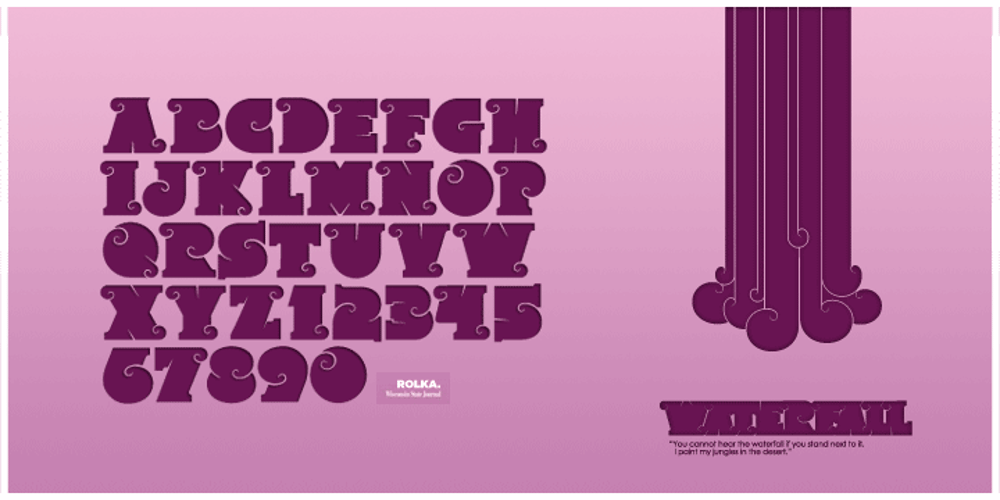
Rolka Font Family was designed by Svetoslav Simov and published by Fontfabric. Rolka contains 2 styles and family package options. Rolka is a custom font which is applicable for any type of graphic design – web, print, motion graphics etc and perfect for t-shirts and logos.